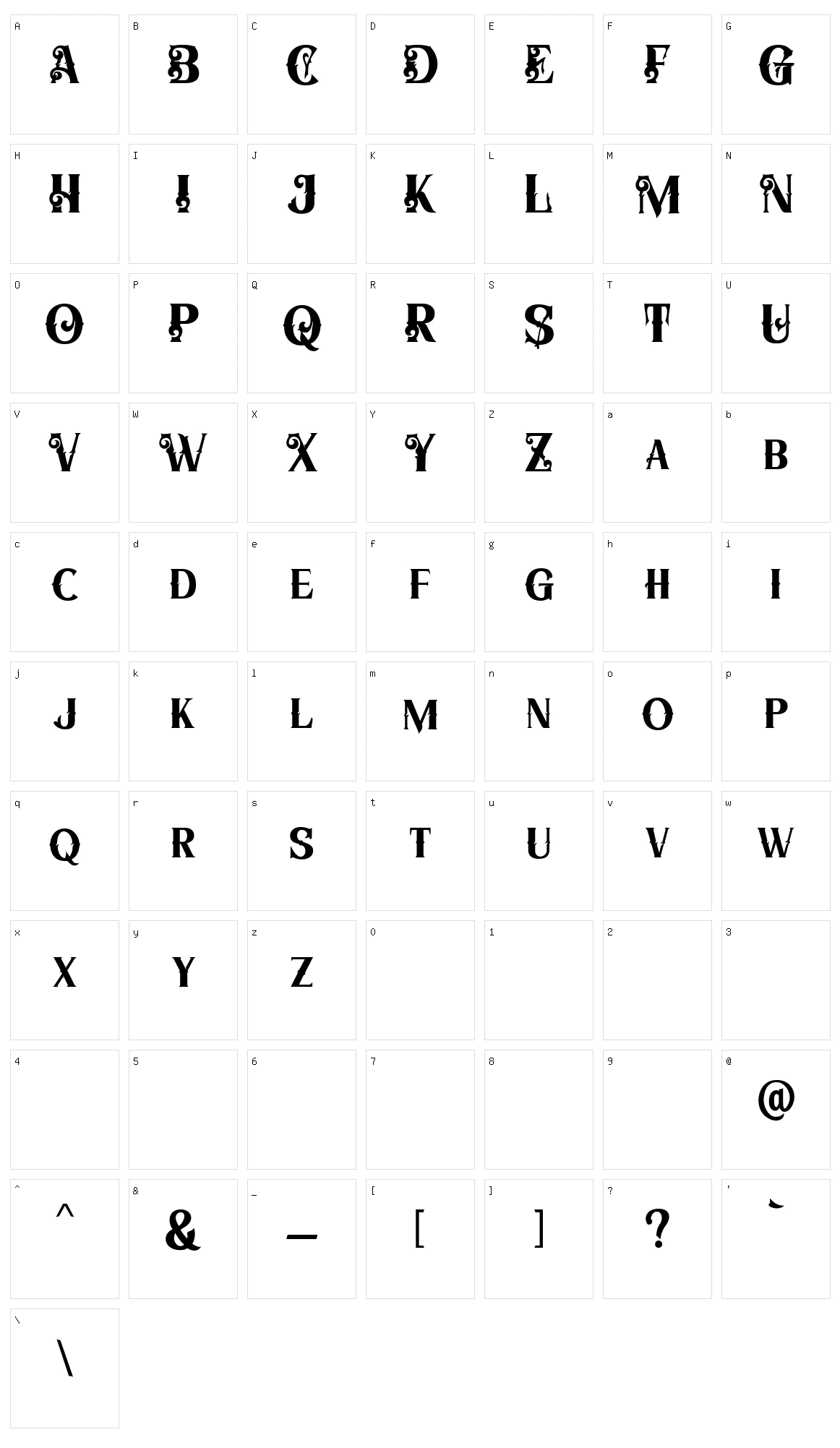
The Panglimul inspired by victorian style and serif. This typeface make your design have vintage style. You can use this font to create design for product label, store name, poster, mug design, wedding sign, apparel, ect.